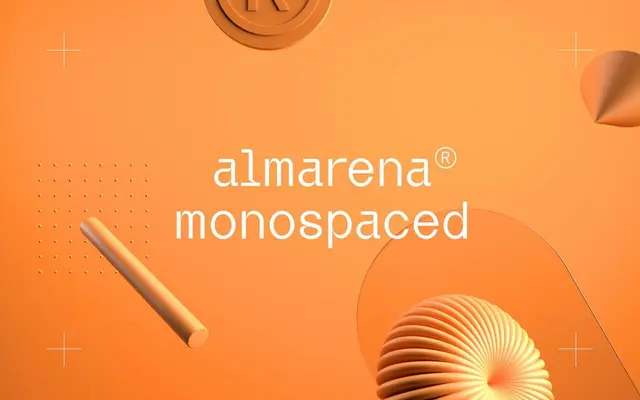
Almarena Monospaced
A geometric monospaced typeface in two styles and two weights, available in classic-spaced or true fixed-width cuts, designed with a mechanical character drawn from typewriter and coding traditions.
Designed by Jérémie Gauthier and released in 2022, the family offers Classic and Display styles, each in Light and Bold, with the option of either proportional-feeling classic spacing or genuine fixed-width output under the FW label. The geometric construction, with its calculated angles and deliberate curves, gives it an affinity with arcade typography, festival posters and technical interfaces. Multiple stylistic sets provide alternate letterforms for applications where tighter character is needed.
A fixed-width typeface with geometric construction, available in both classic-spaced and true fixed-width variants, placing it squarely in the monospaced category with geometric sans characteristics.